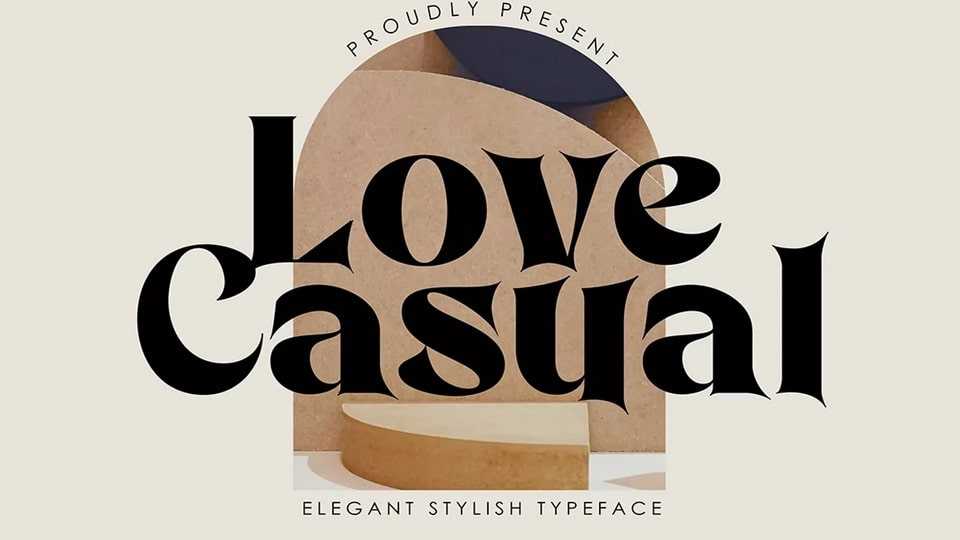
Download Love Casual font, an elegant and stylish serif typeface. Love Casual is a very versatile font, perfect for branding projects, logos, magazine imagery, wedding invitations